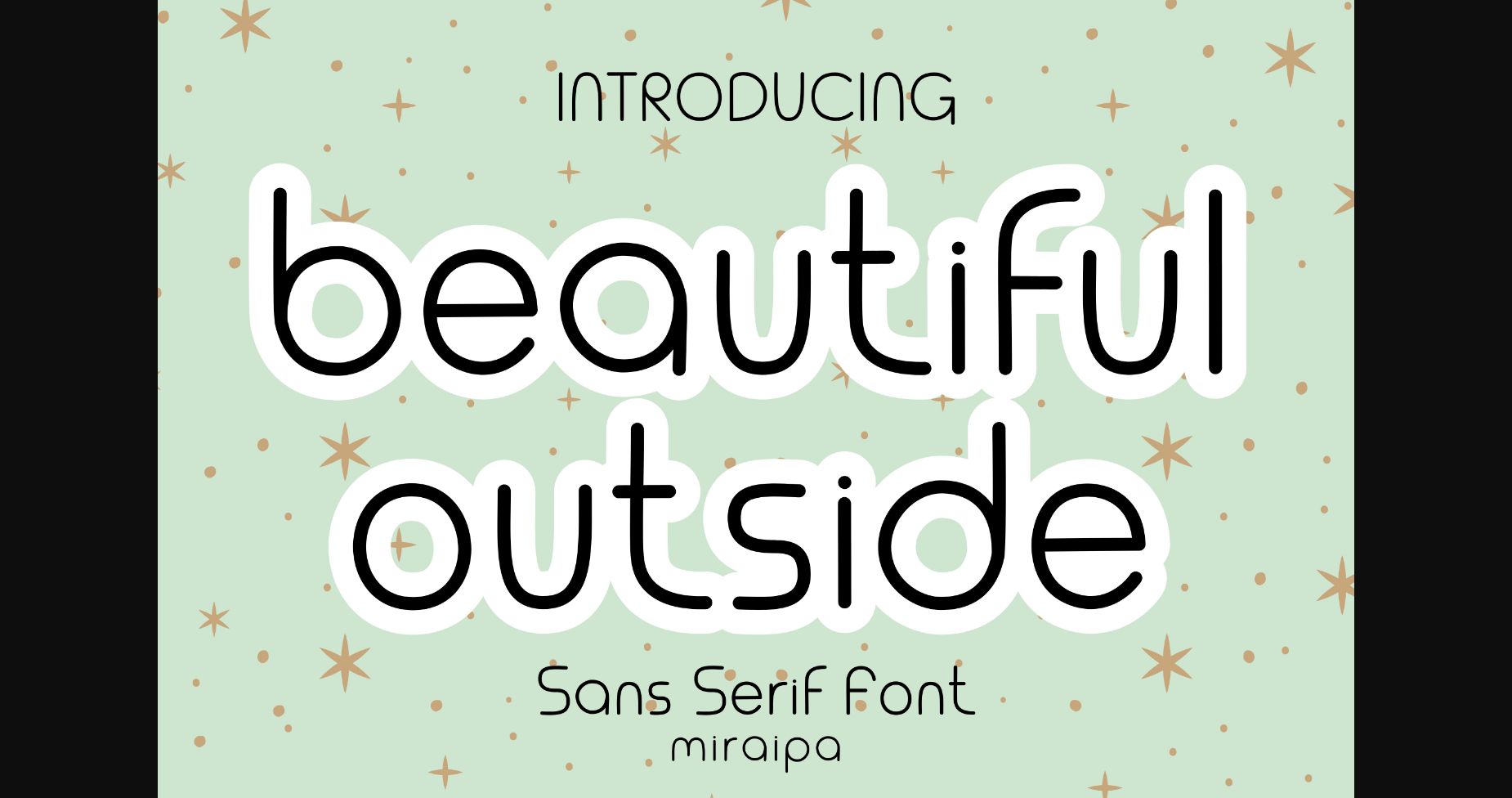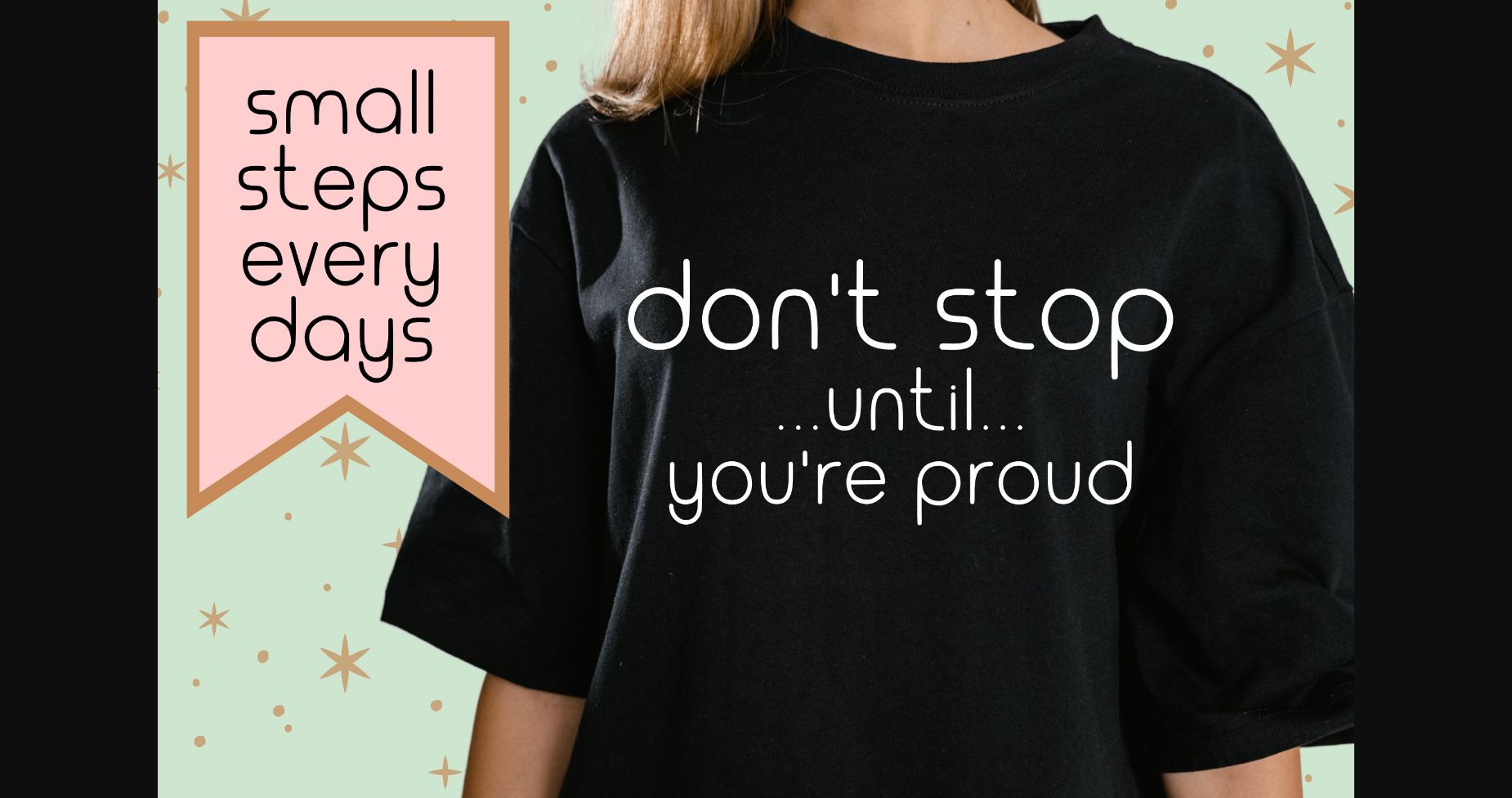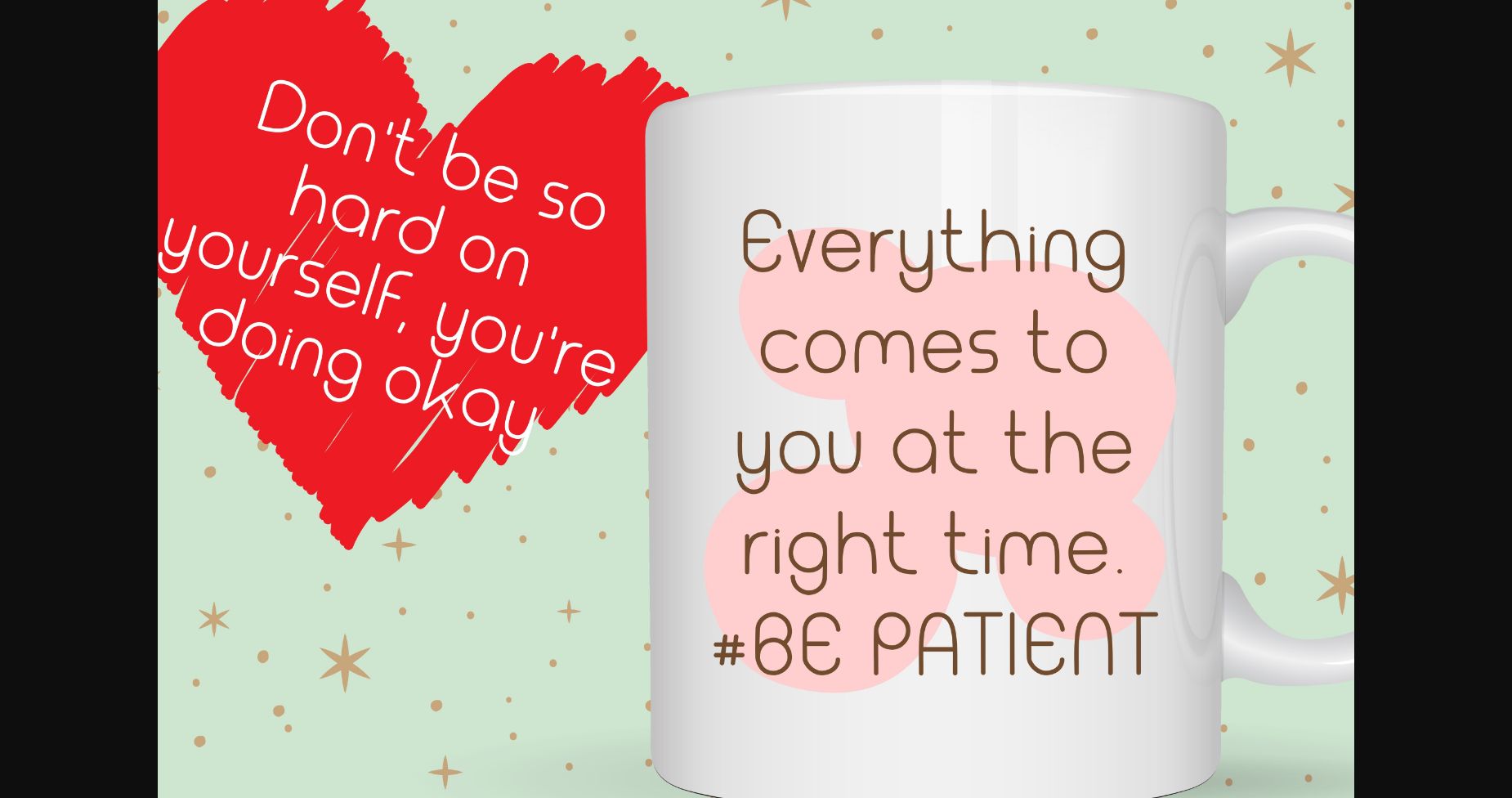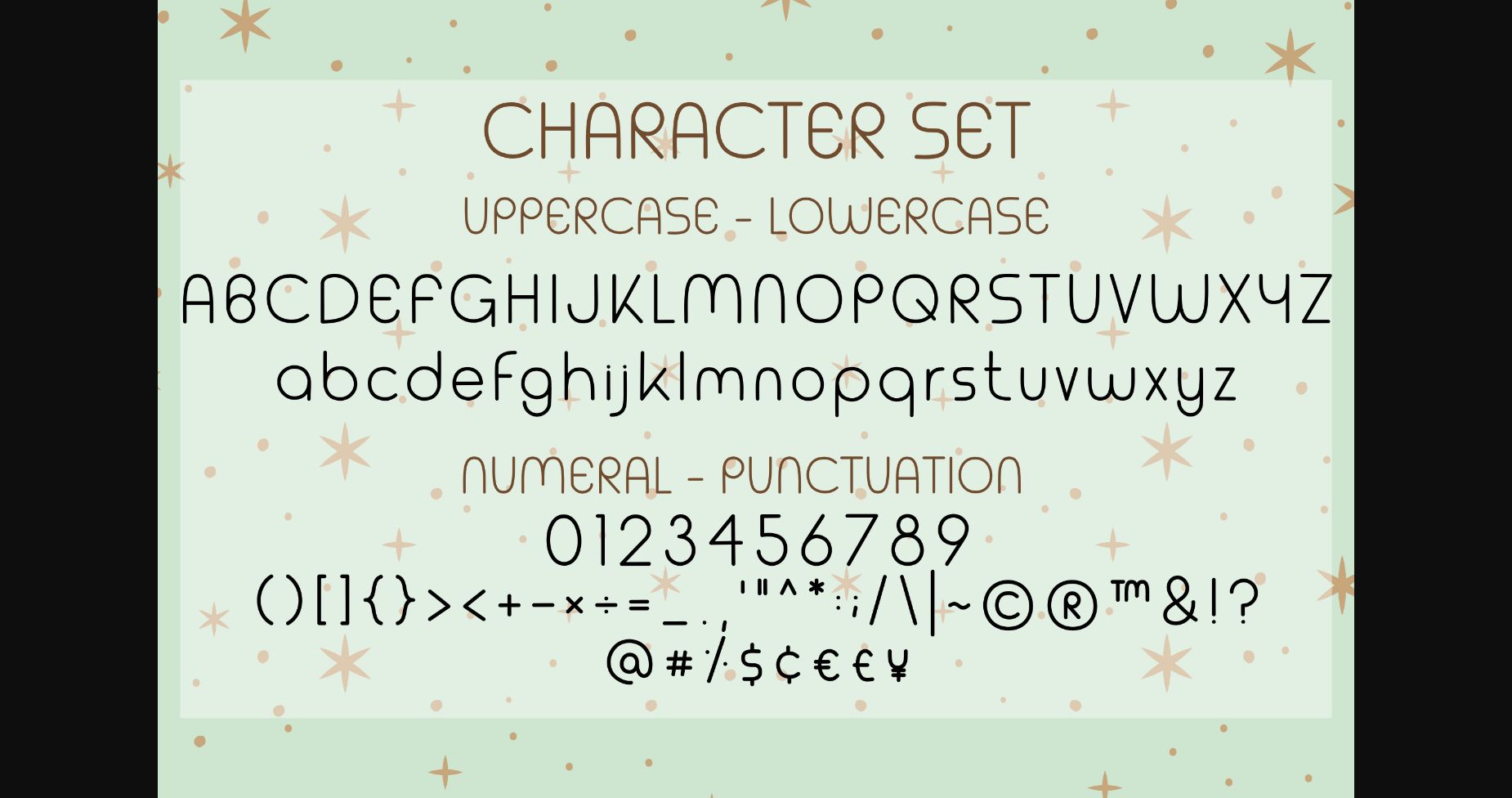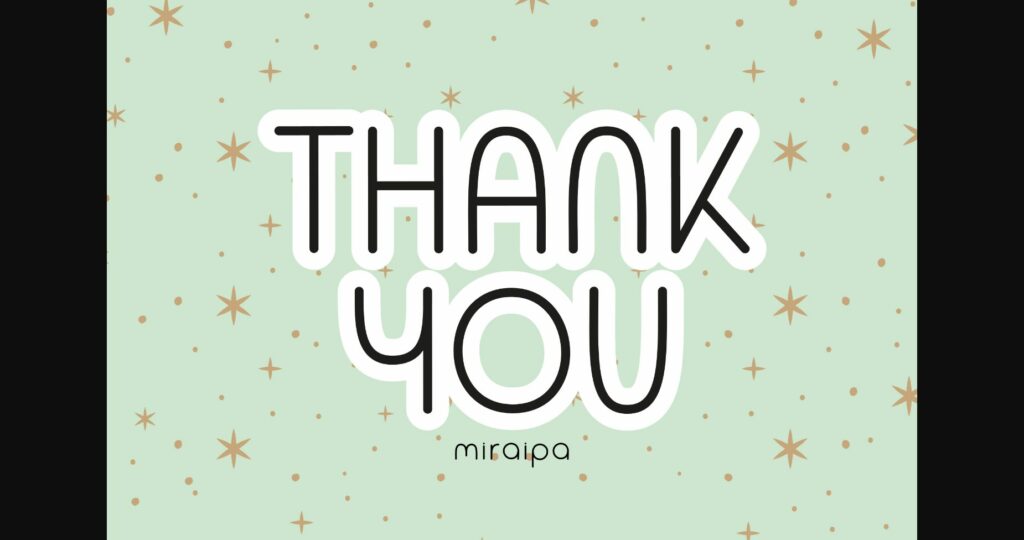
Beautiful Outside Font
About Beautiful Outside Font
Beautiful Outside is designed in a friendly and classy handwritten San serif style. It’s charming, Classic, and modern. It would be awesome to your fun projects or diary planner. Let’s try it to your perfect projects such as Easter, back to school, wedding, party decoration, invitations, Fall, Halloween, Christmas, posters, blogs, clothing, child-related designs, greeting cards, social media posts or anything that needs a friendly touch. Add it now to your fonts library, and it will bring any of your DIY projects to life.